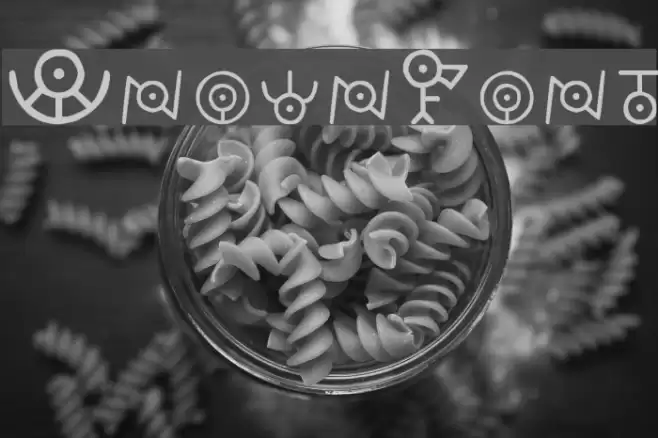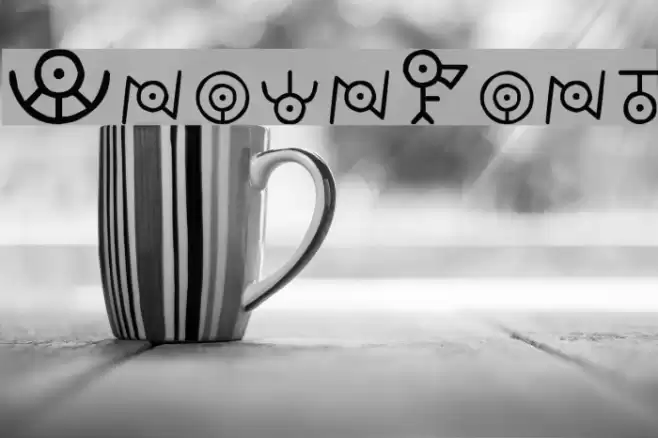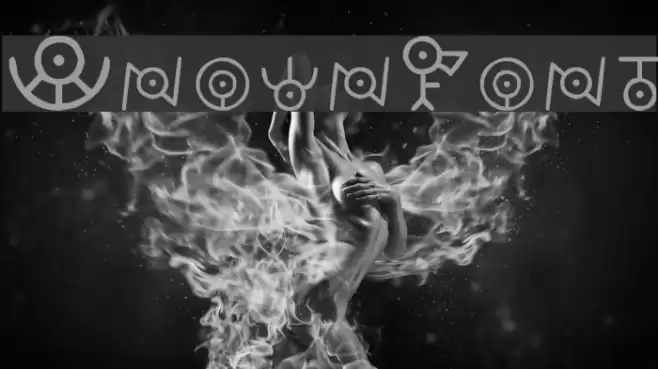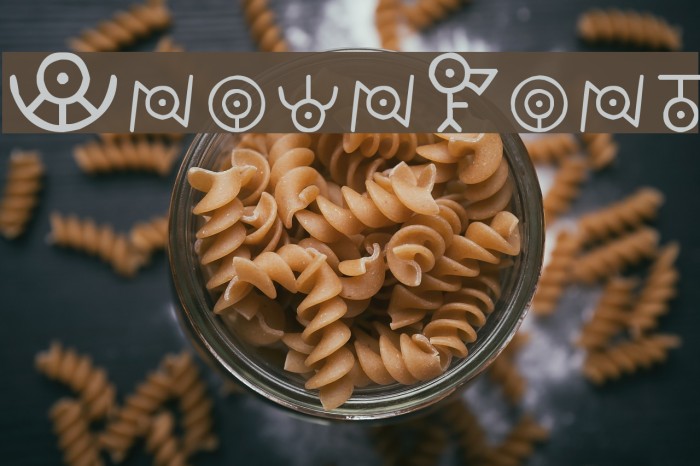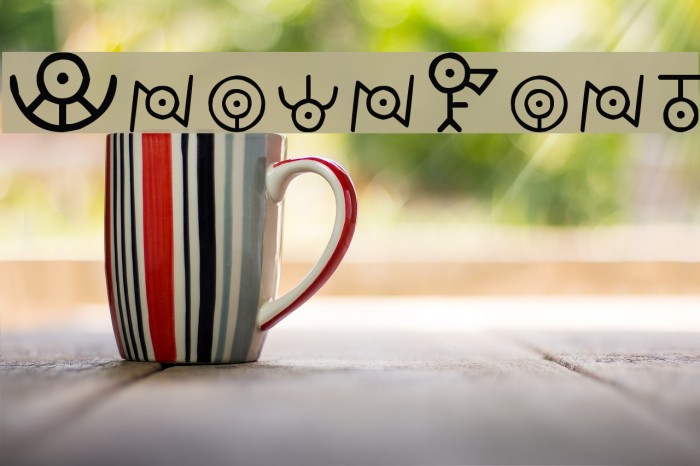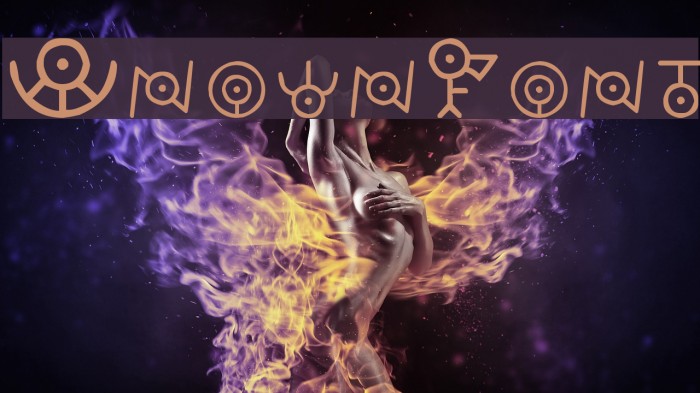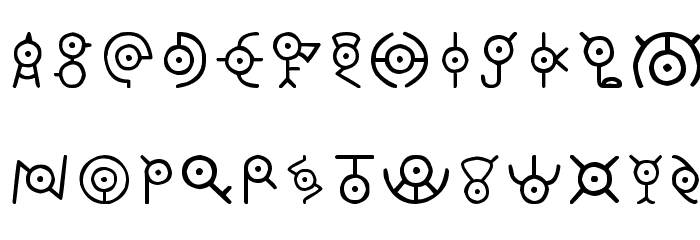
Unown Font
Unown Description
This set of symbols is inspired by ancient and mysterious glyphs, each character resembling an eye-like design with varying geometric shapes. The characters are highly stylized, with a consistent circular motif that gives them an enigmatic and cryptic appearance. The symbols are uniform in weight and size, creating a cohesive visual language that feels both alien and ancient. The overall design is decorative, with each character having a unique form while maintaining a thematic consistency across the set.
A decorative and cryptic set of symbols with eye-like geometric designs from Decorative fonts.
- Proposed Projects: Ideal for fantasy-themed projects, escape room puzzles, or as a decorative element in graphic design that requires a mysterious or ancient aesthetic.
- Use Case: Logos, Decorative elements